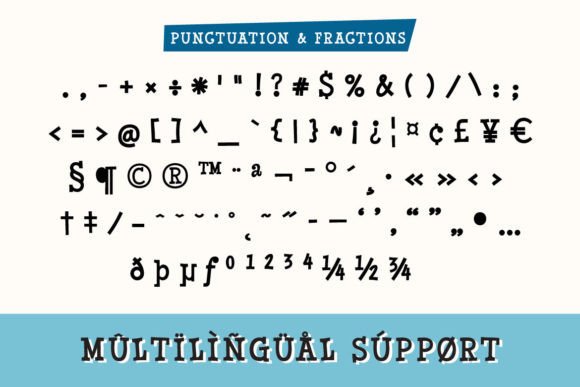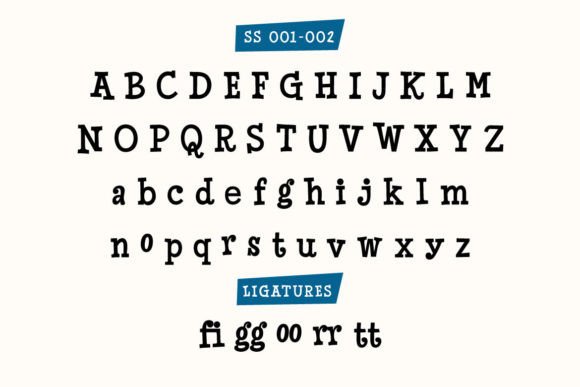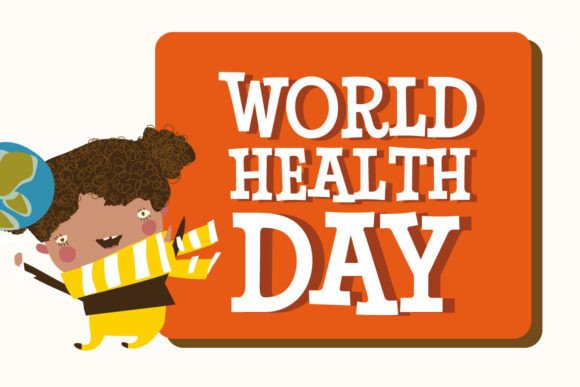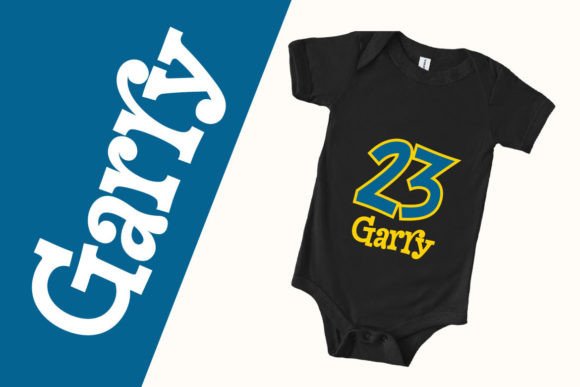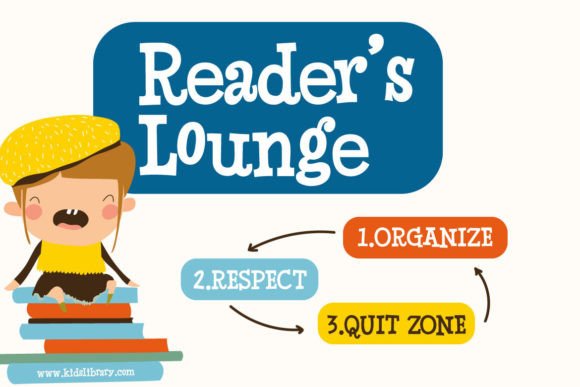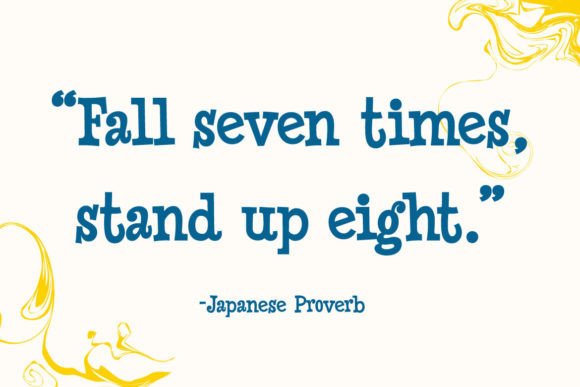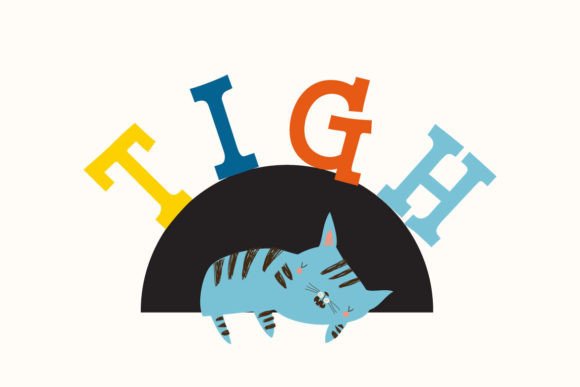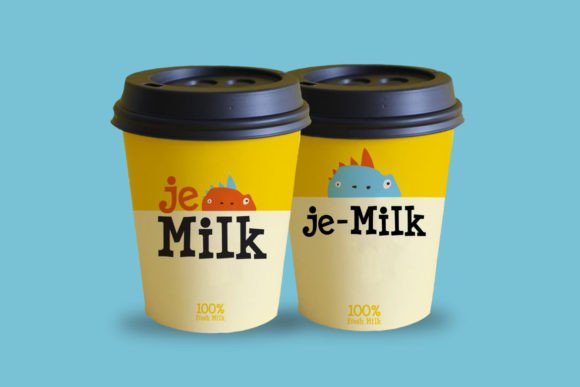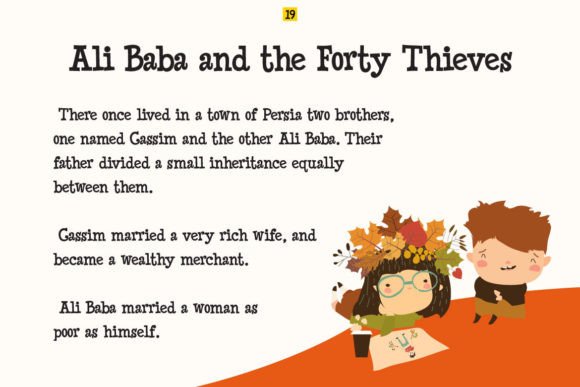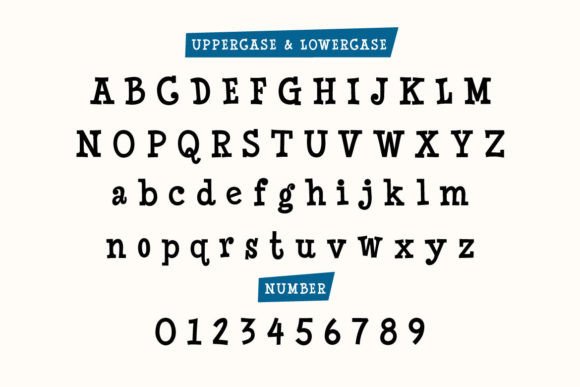
Qucky Time Font
Qucky Time is fun slab serif font. The shape has a relaxed serif impression but catches the attention of the viewer.
Qucky Time so perfect for headlines and titles, for branding and packaging, books, invitations, and anything else you want in a childish serif.
-OPEN TYPE FEATURES:
-Stylistic Style 001-002
– Standard Ligatures
-Discretionary Ligatures
-Fractions
– Multilingual support, etc.